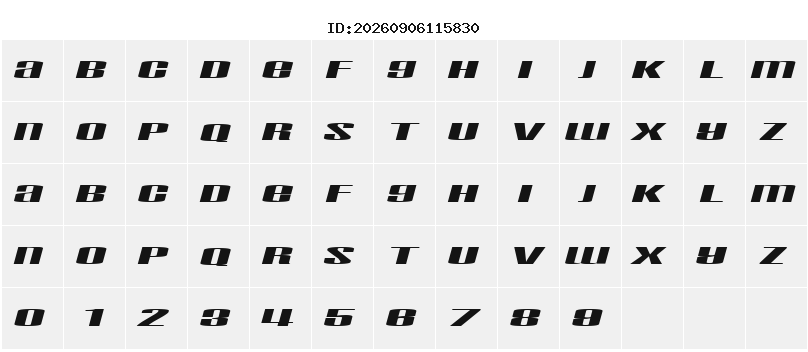
Taskeksem inflamerat Preview
About Taskeksem inflamerat.ttf
Taskeksem inflamerat.ttf is a modern, elegant sans-serif font designed for ultimate readability and visual harmony. Perfect for branding, headlines, web design, and print materials.